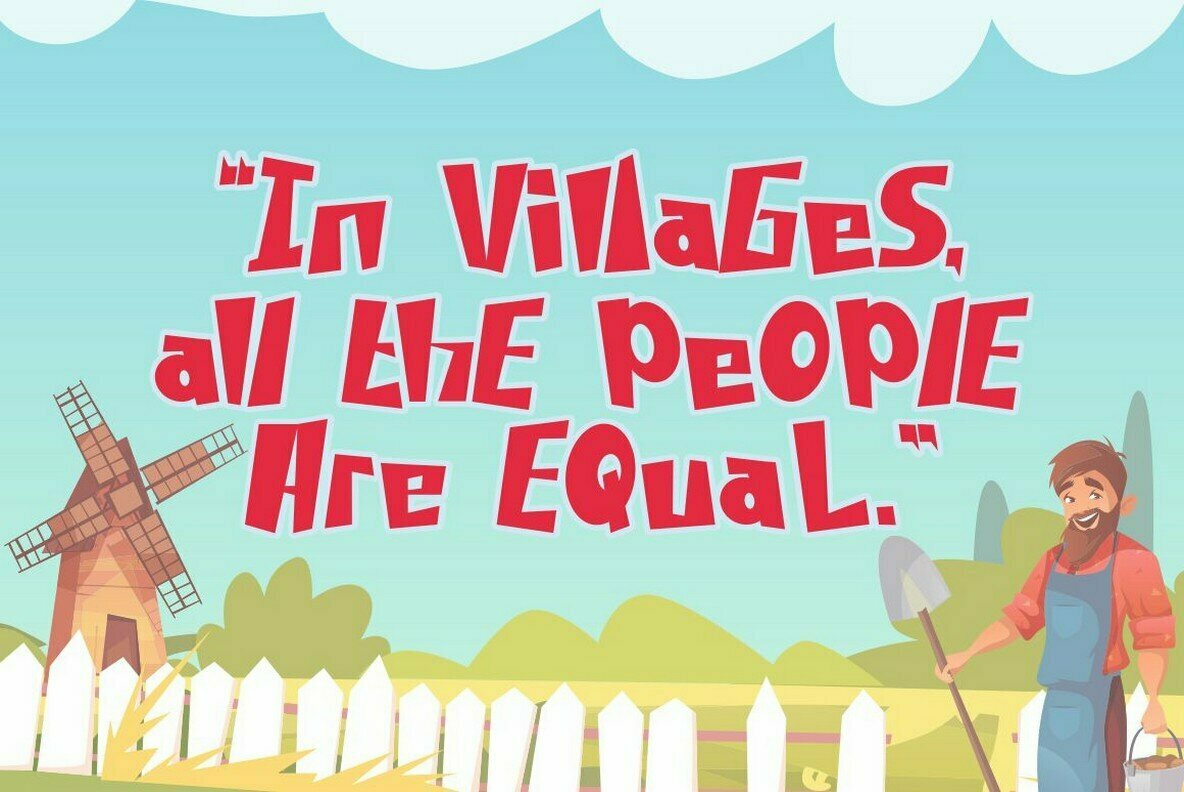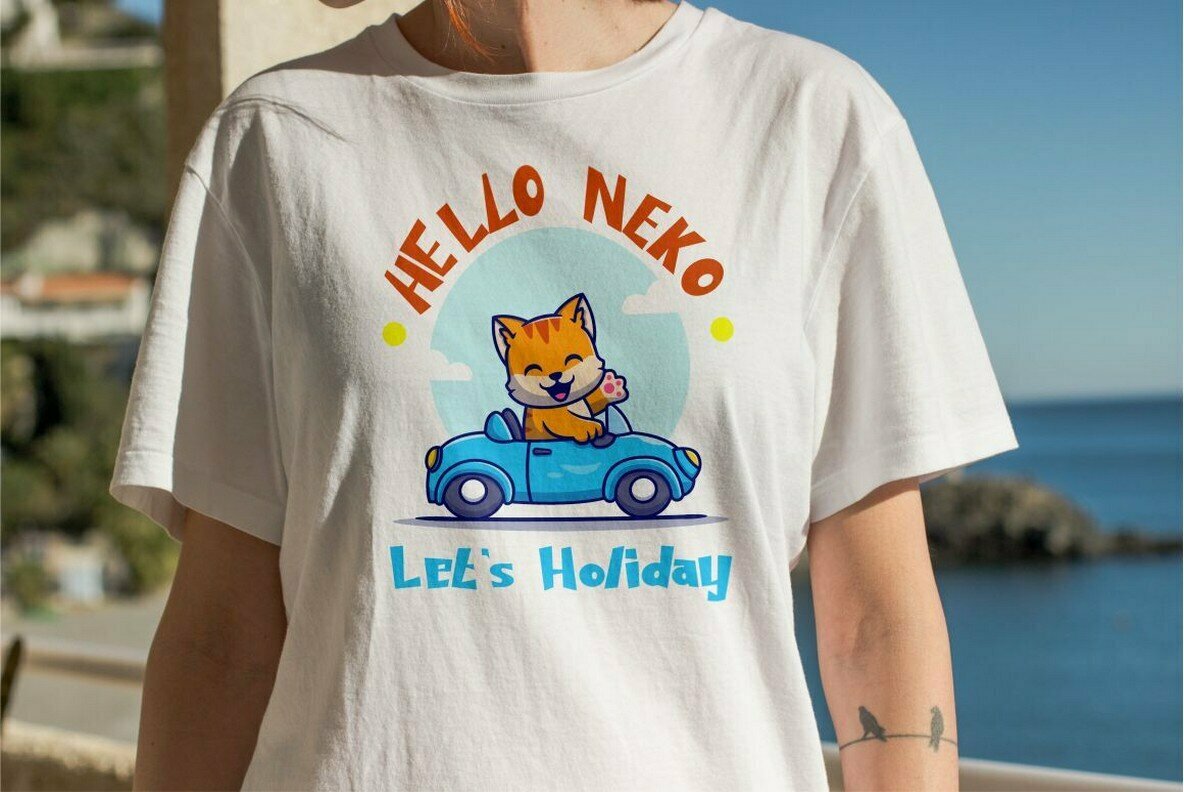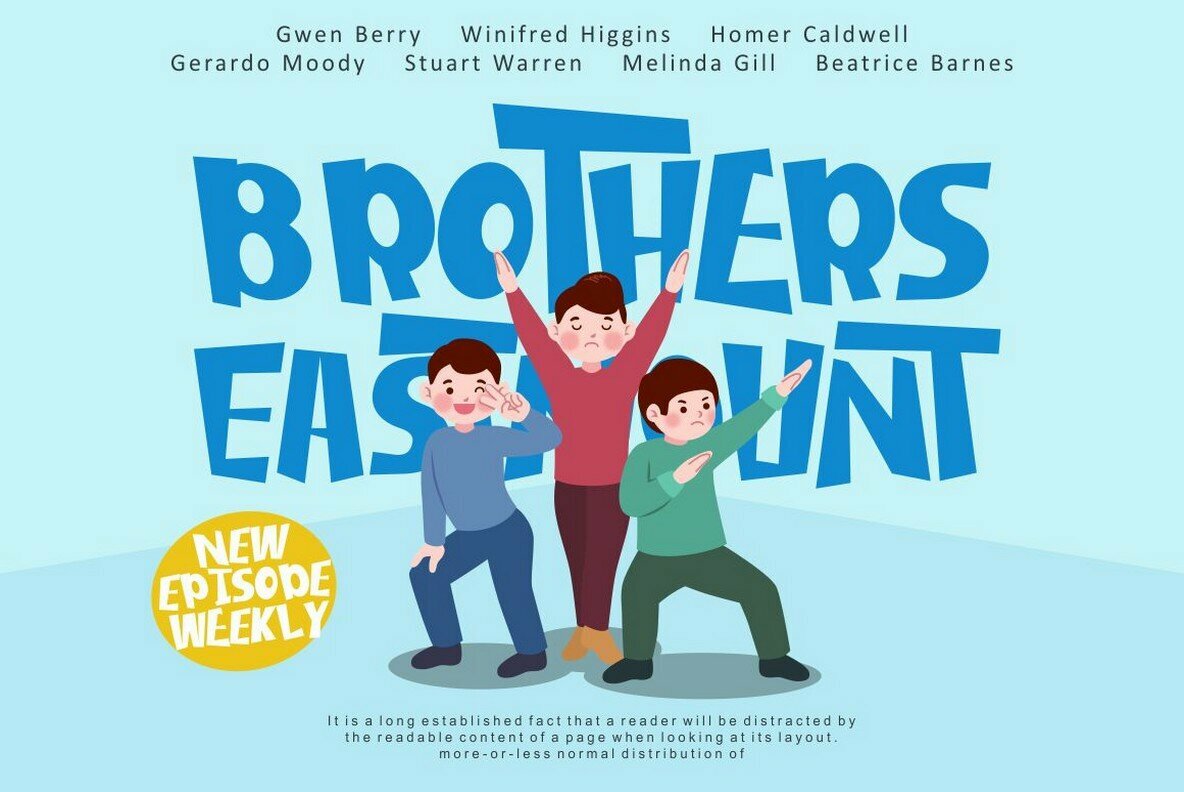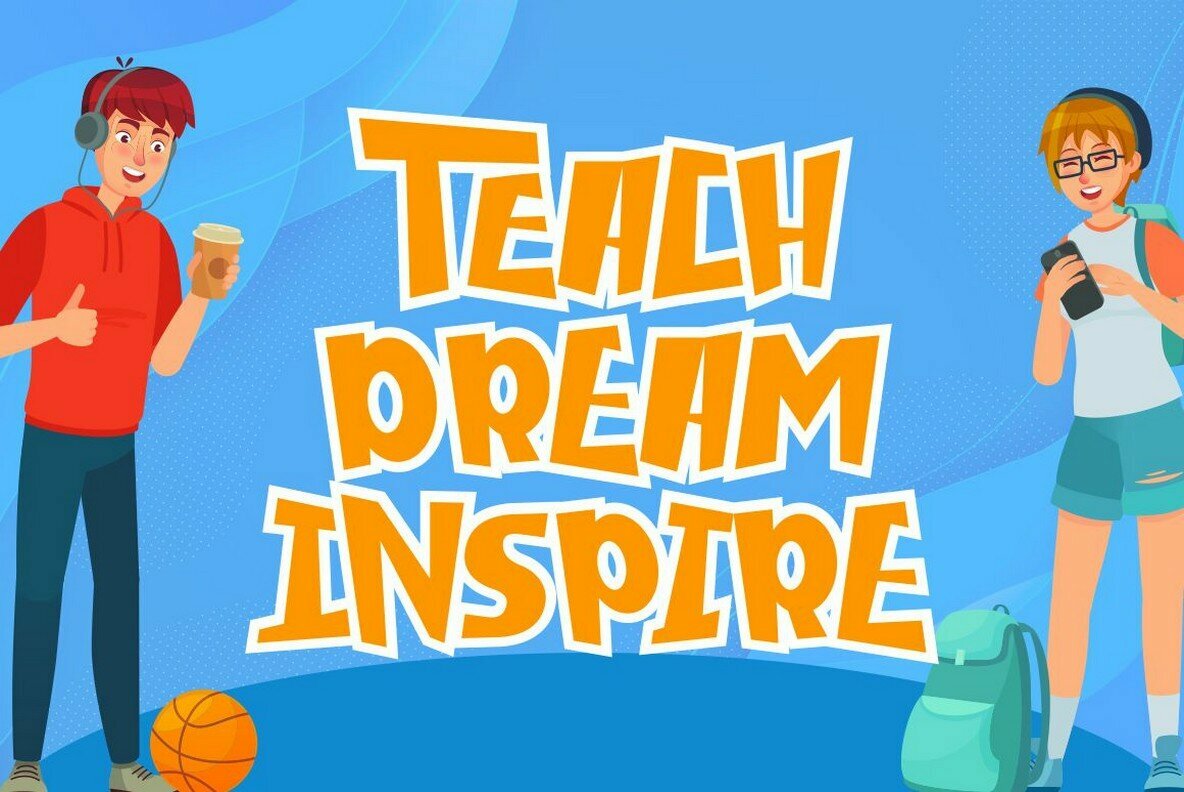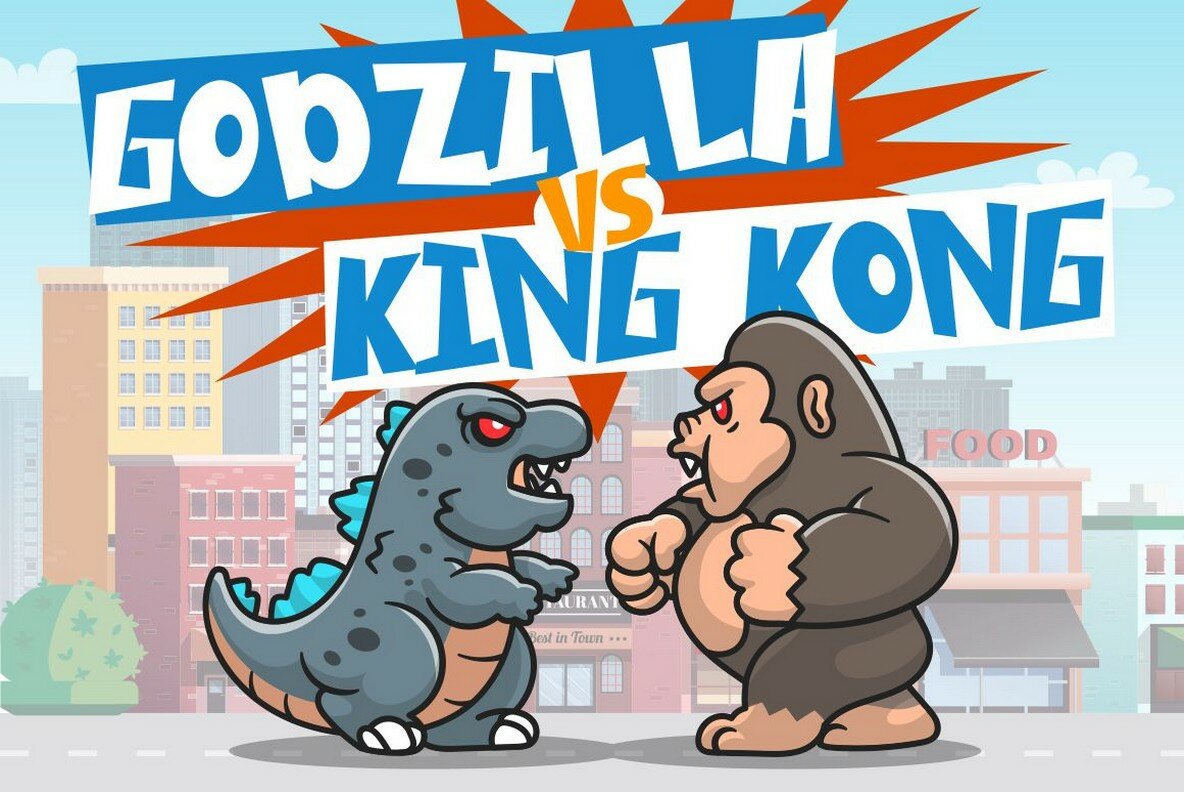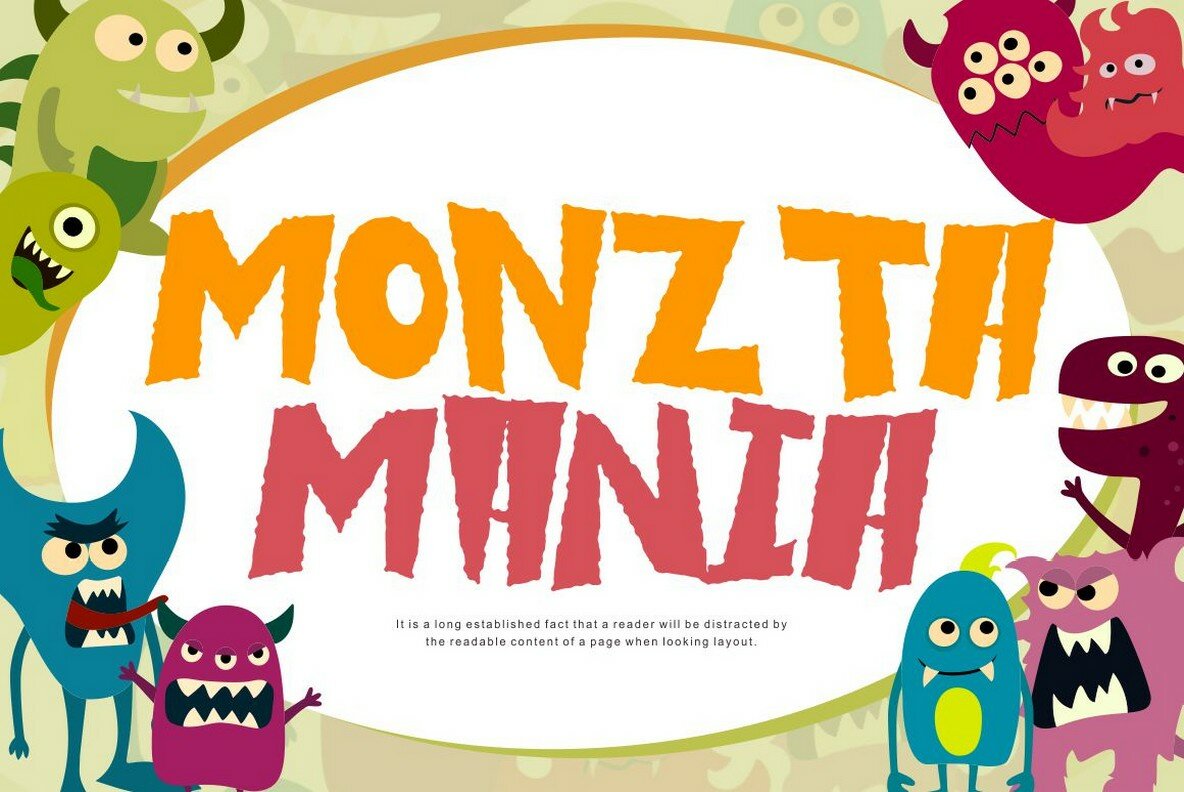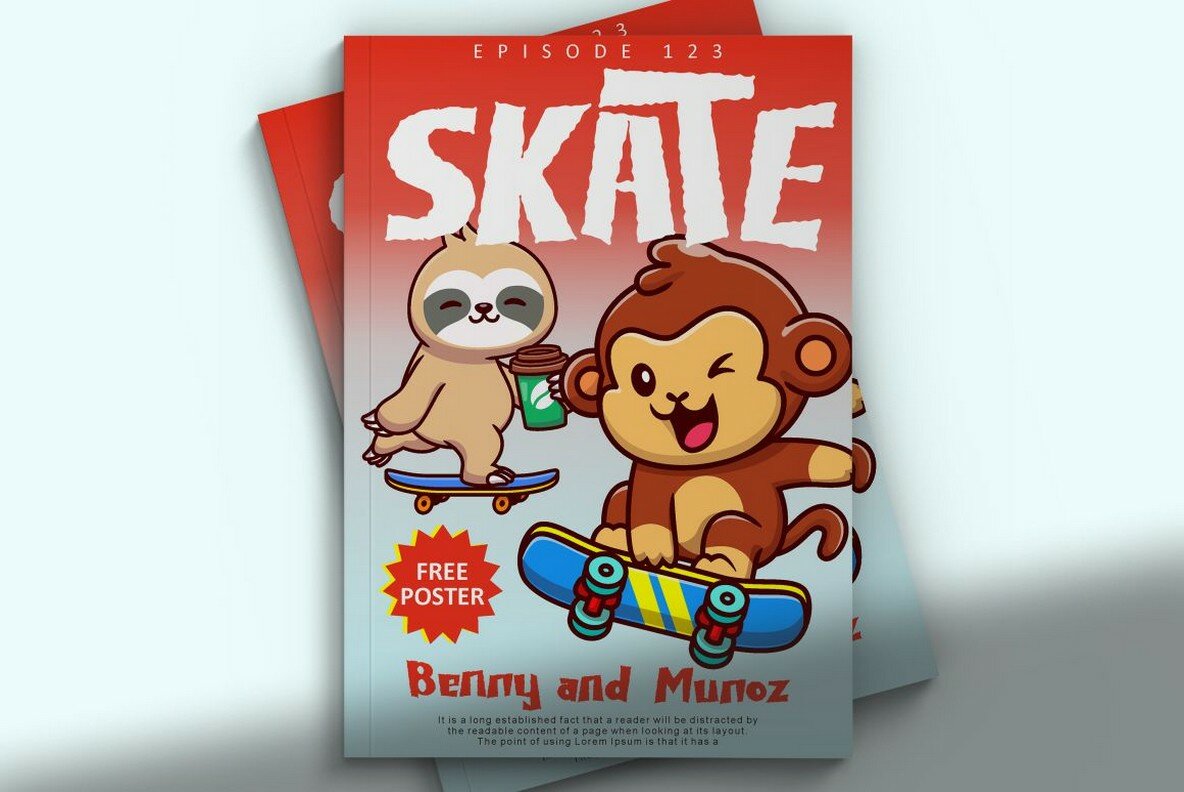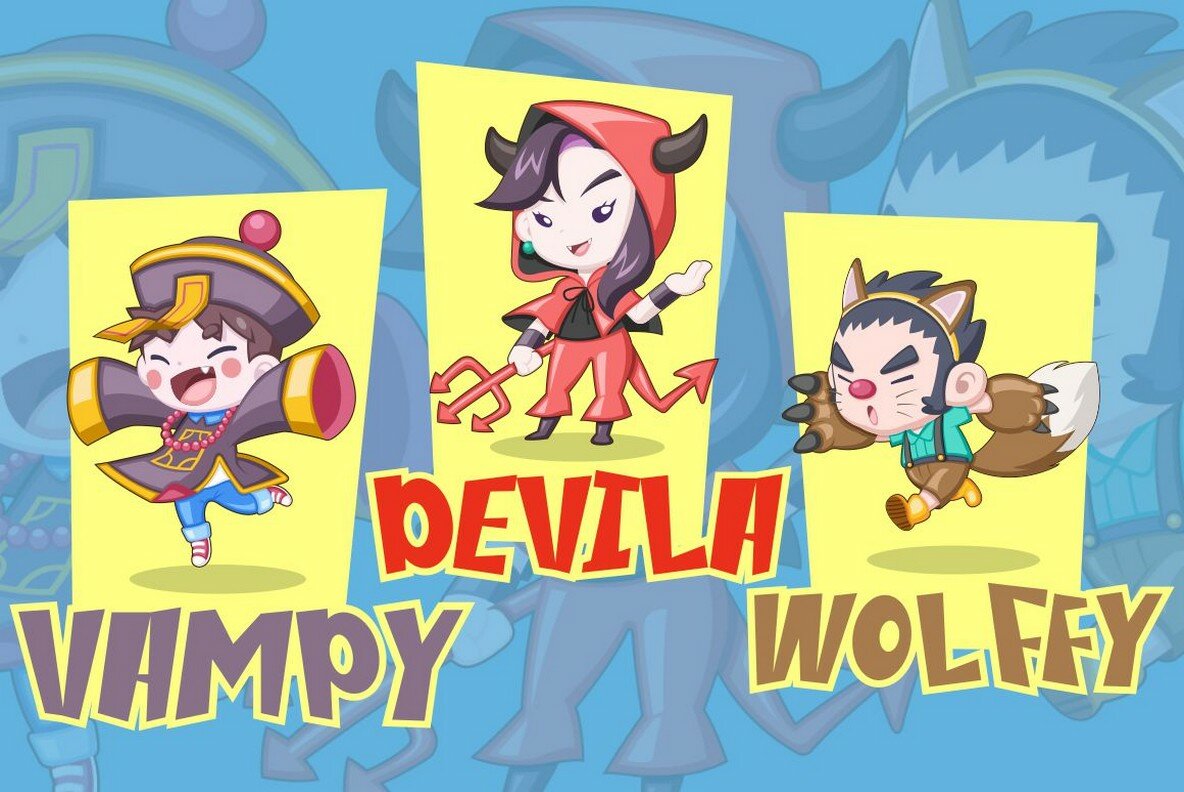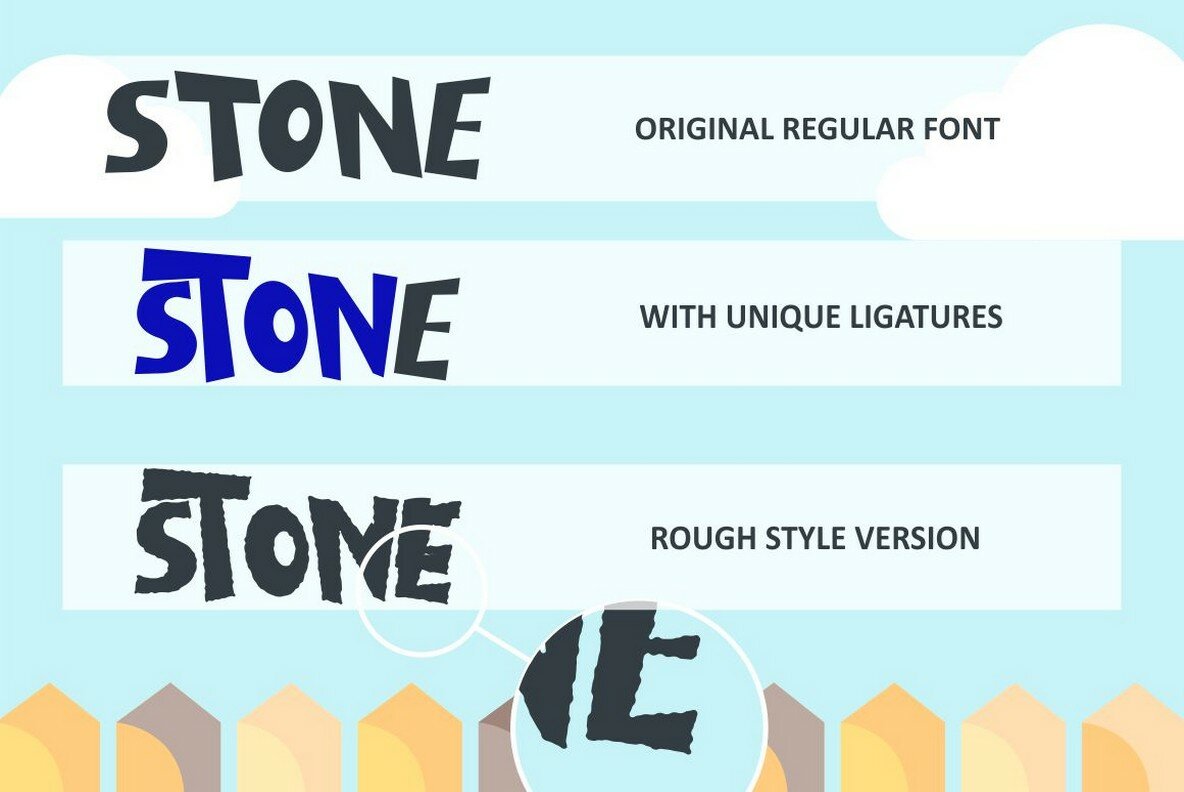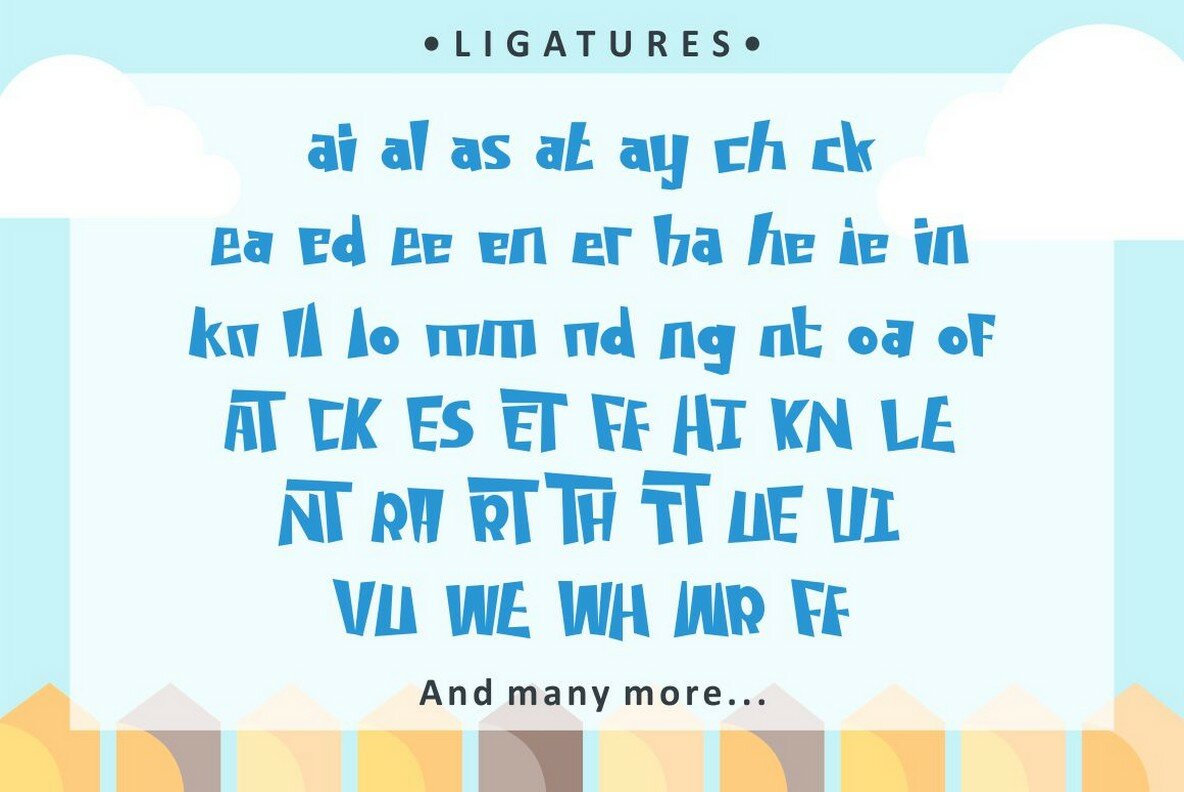
Dizzy Fence Font
Dizzy Fence, a quirky and blocky display font. This font is perfect for your projects related to kids, which is playful and fun. This font also has 2 versions, clean and rough. Dizzy Fence also perfect for branding design, posters, apparel, logotype, header, quote, invitation, greeting card, cover, poster, fashion design and any more.
Come with lot of ligatures character, its help you to make great lettering. This font is also support multi language.
Comes with feature:
- Uppercase
- Lowercase
- Number, Punctuation And Symbols
- Multilanguage Support.